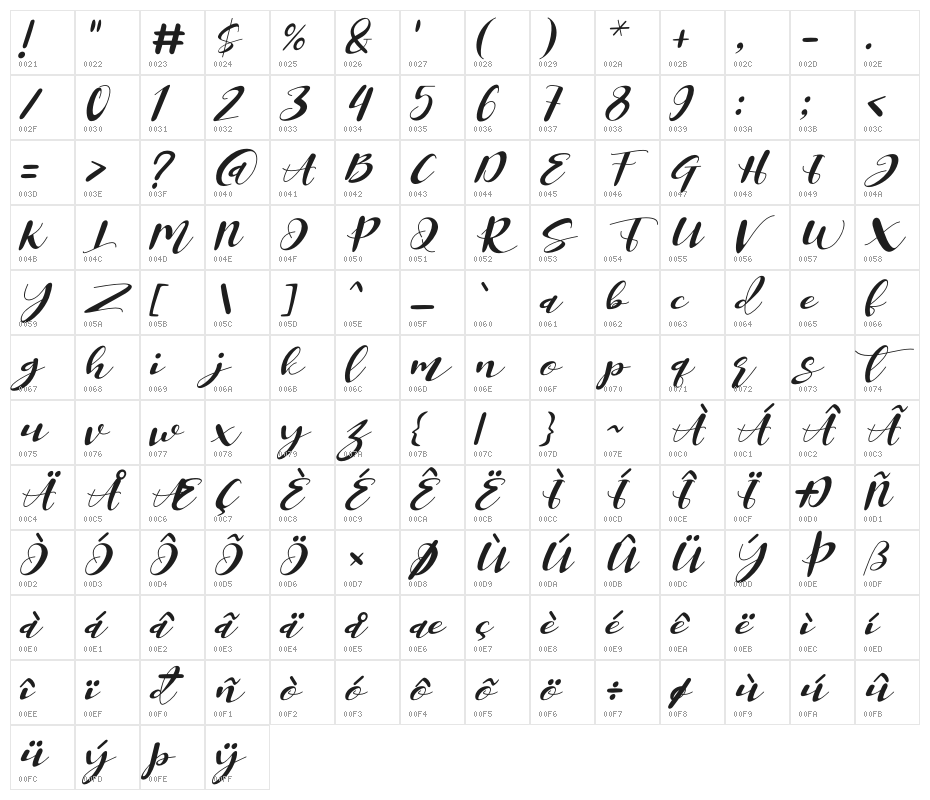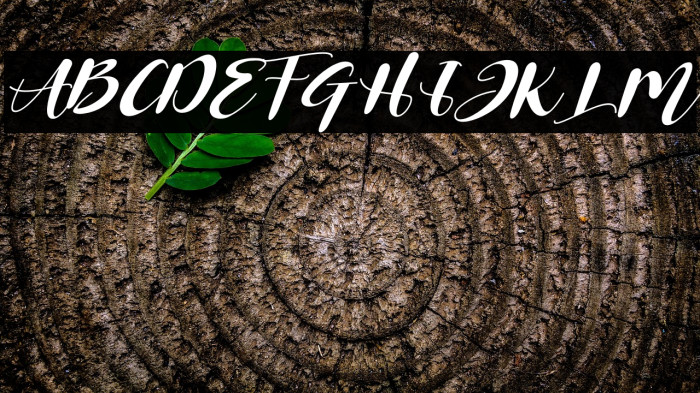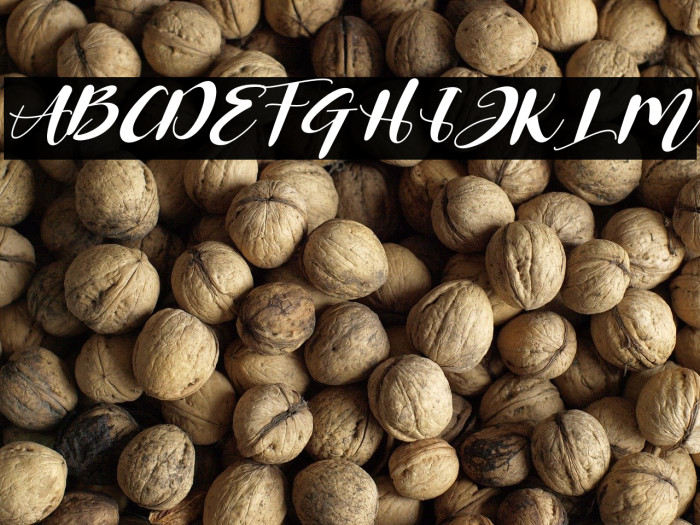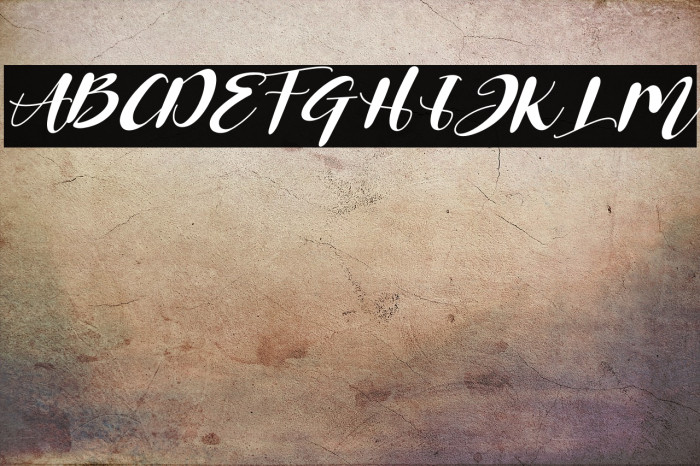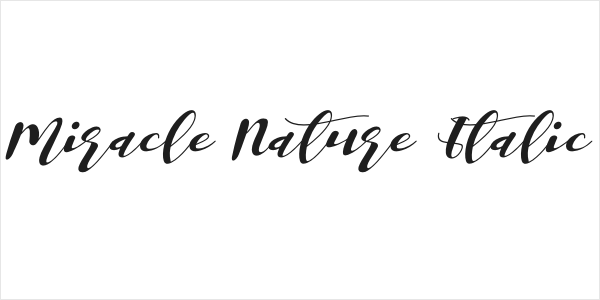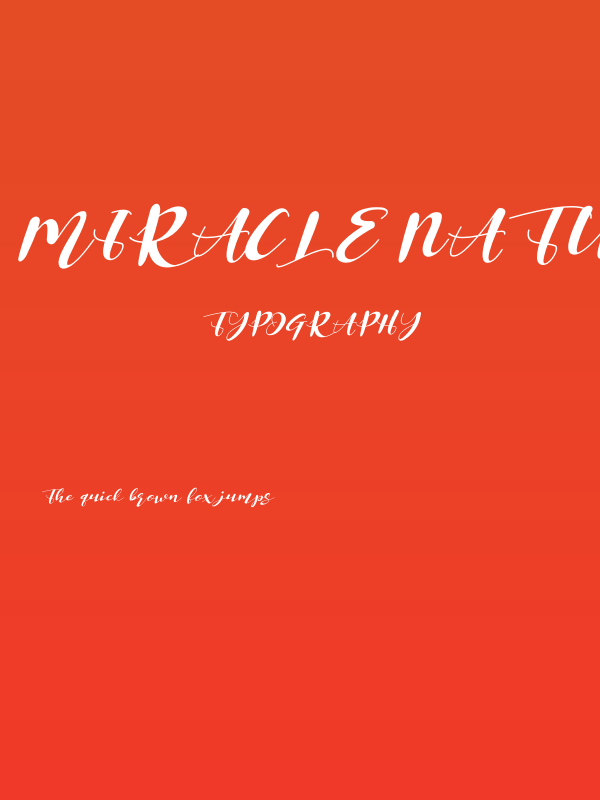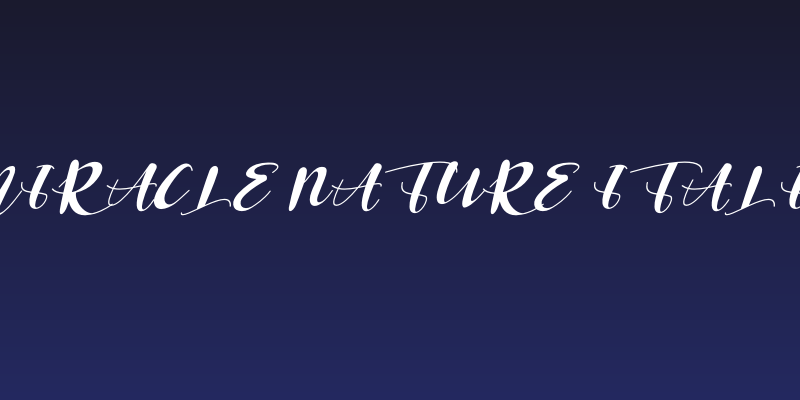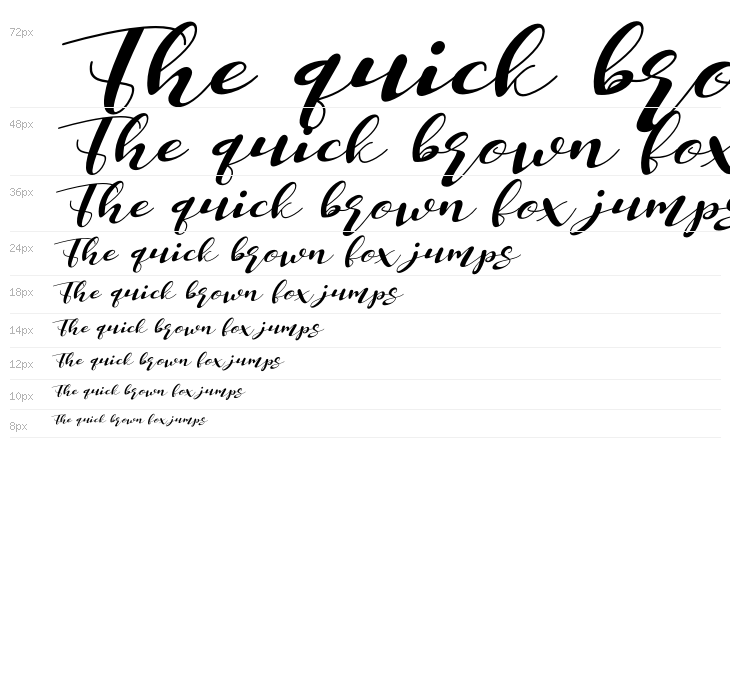
Miracle Nature Italic Font
Miracle Nature Italic Description
This font features a flowing, cursive style with elegant, sweeping strokes that give it a dynamic and expressive appearance. The letters are interconnected, creating a sense of continuity and fluidity. The uppercase letters are bold and prominent, while the lowercase letters maintain a consistent rhythm, enhancing readability. The numerals are distinct and stylish, complementing the overall aesthetic. Special characters are designed with the same attention to detail, ensuring they blend seamlessly with the rest of the font. This font exudes a sense of sophistication and creativity, making it suitable for a variety of design projects.